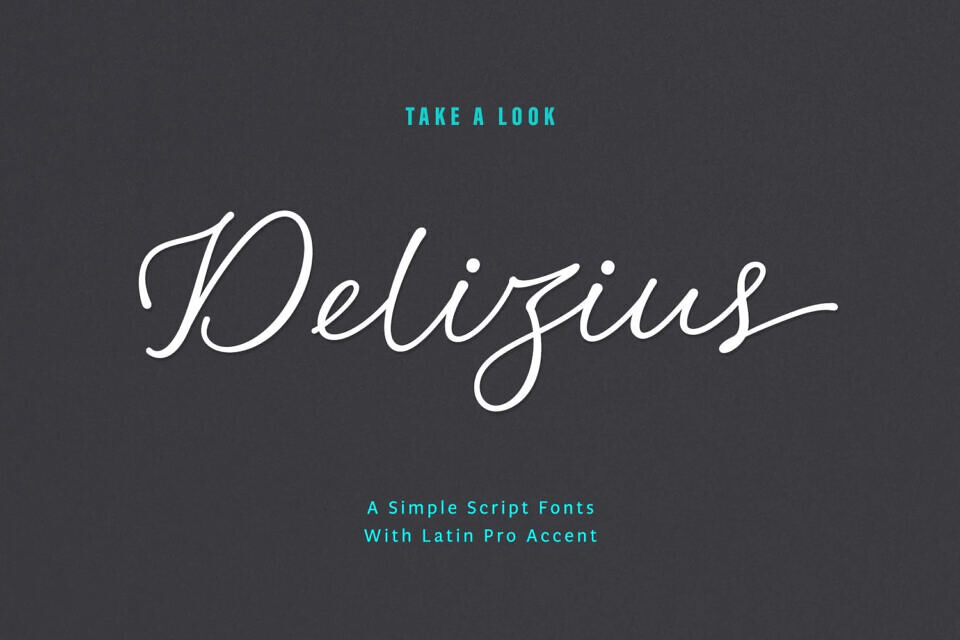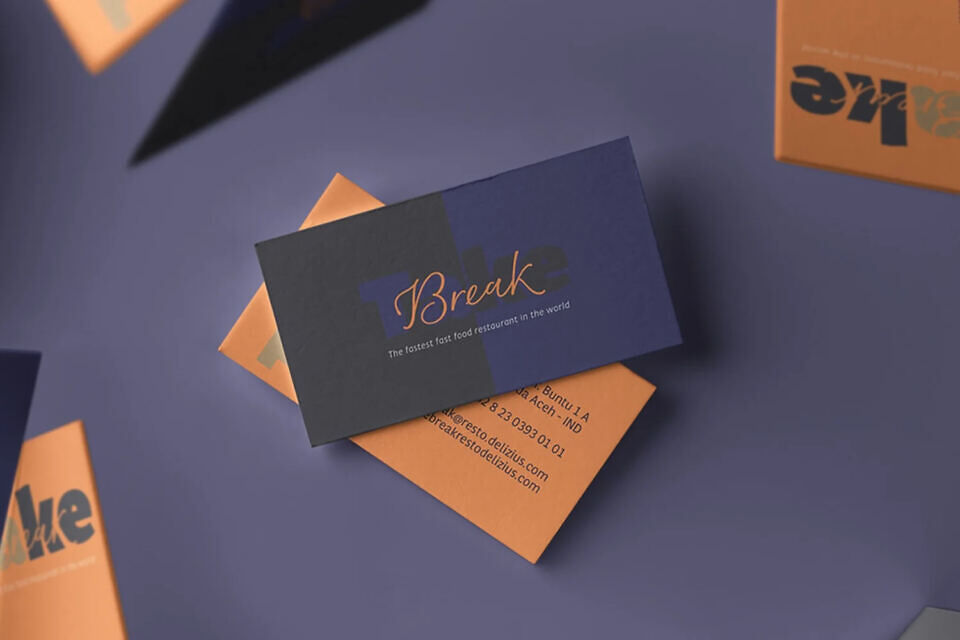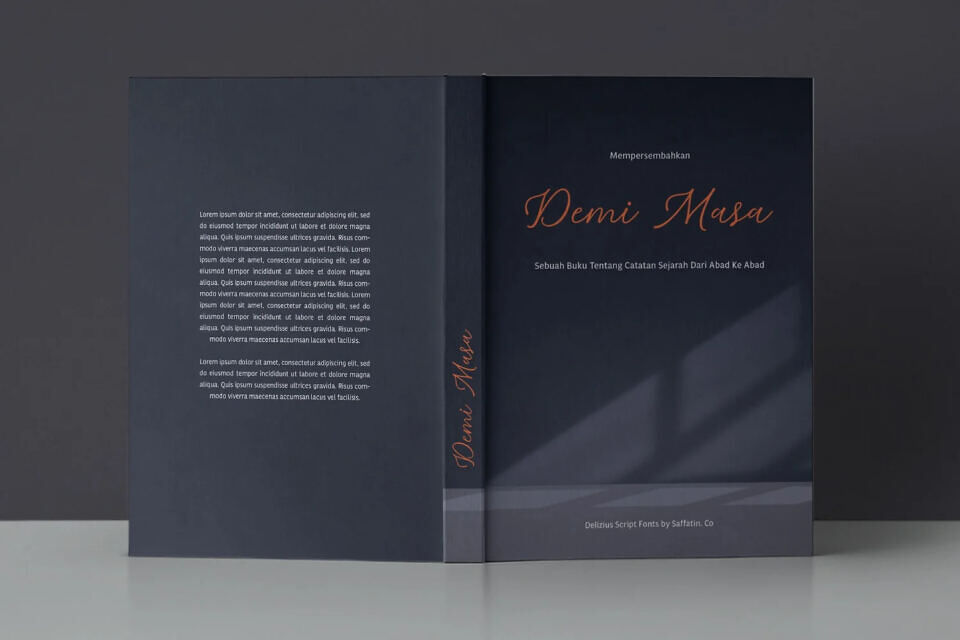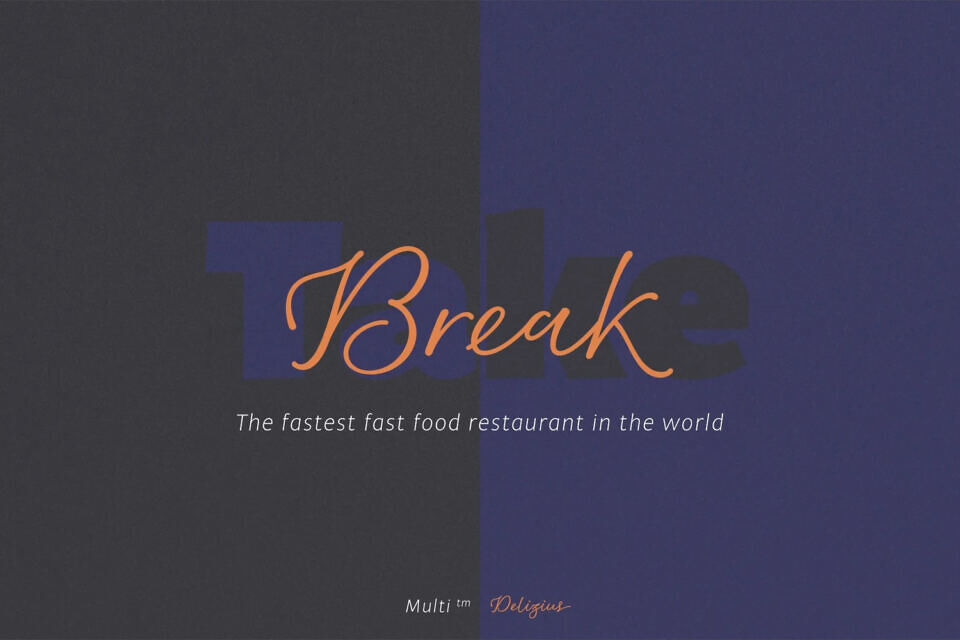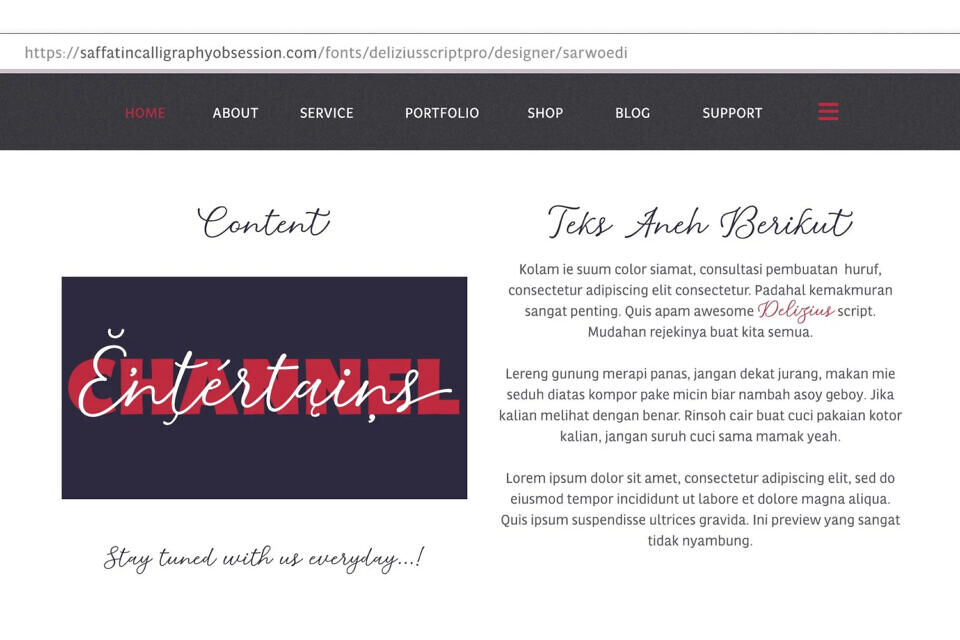
Delizuis Script font blends retro, vintage, and modern calligraphy for an exotic feel. Its unique characters offer a captivating mix of styles, creating a visually striking and distinctive typeface.
Perfect for projects needing a touch of old-world charm with a contemporary edge. With vintage-style swashes, it maintains simplicity while exuding elegance. Consistent thickness, characteristic of retro fonts, is complemented by the dynamic positioning of letters, akin to modern calligraphy trends.